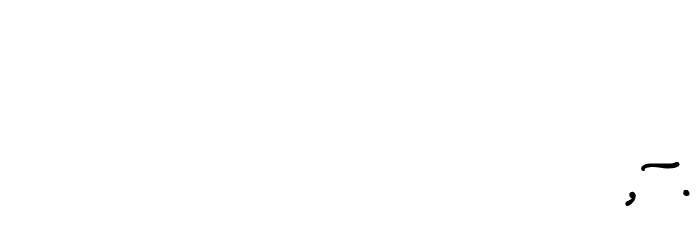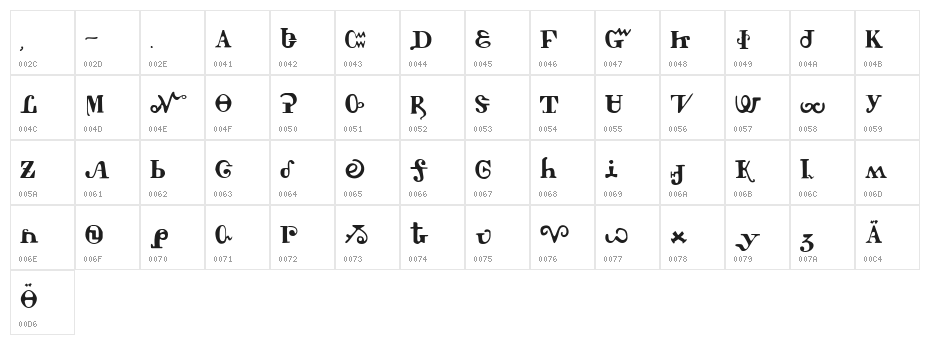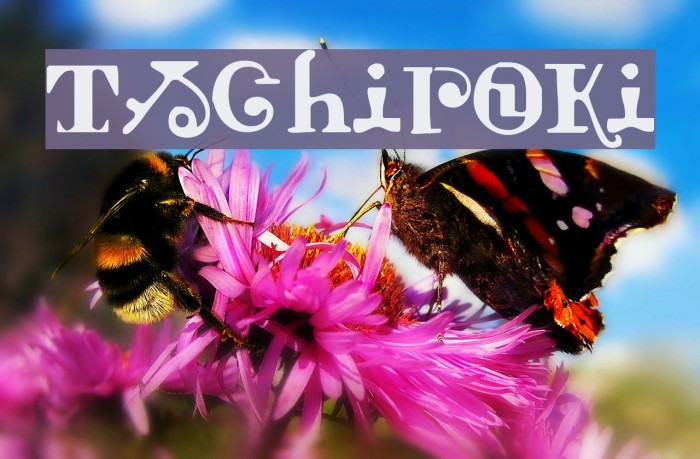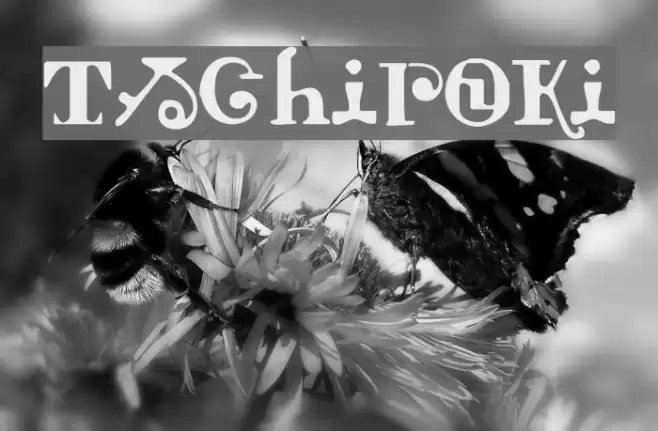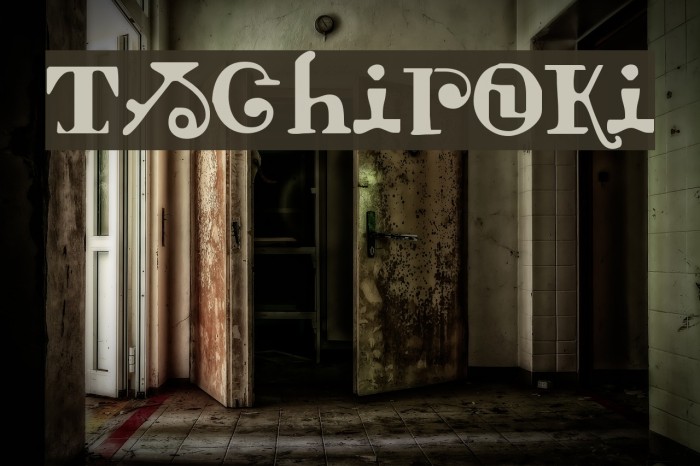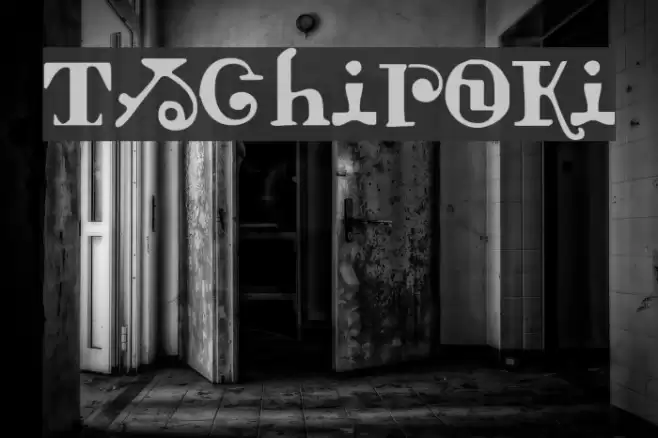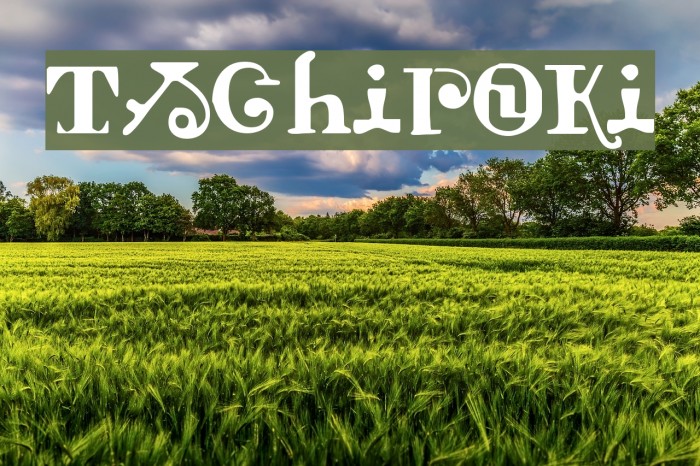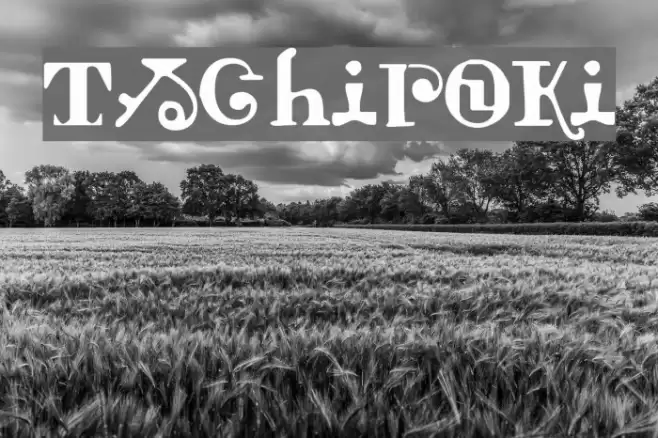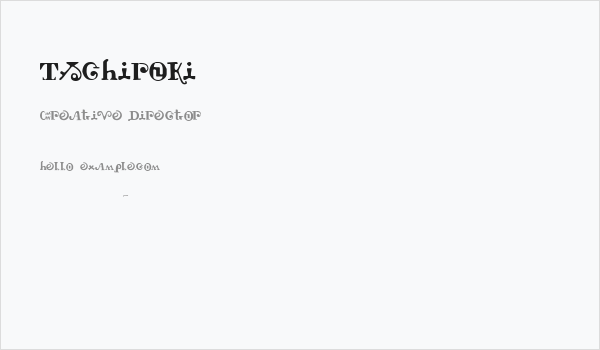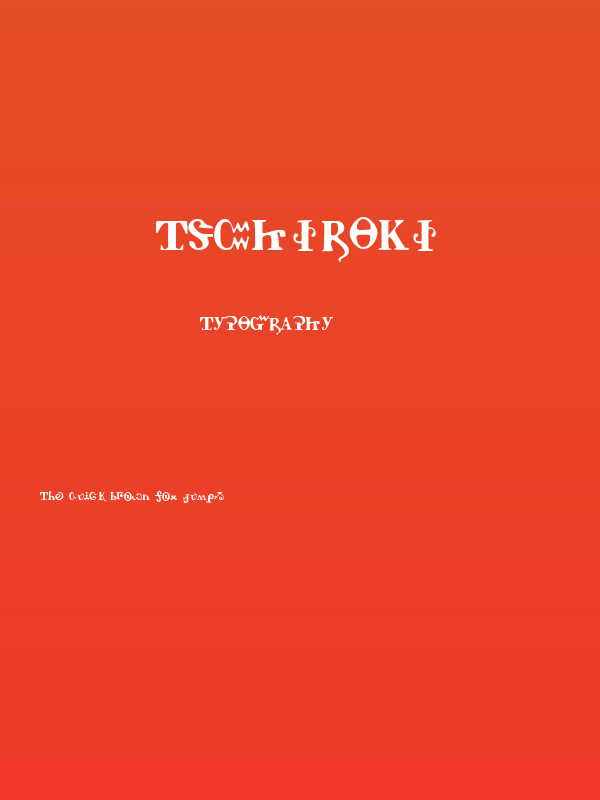
Tschiroki Font
Tschiroki Description
This font features a unique and artistic design, characterized by its bold and decorative elements. Each letter is crafted with intricate details, incorporating curves and flourishes that give it a whimsical and playful appearance. The uppercase letters are particularly striking, with some incorporating unexpected twists and loops. The lowercase letters maintain the same decorative style, ensuring consistency across the font. The numerals and special characters are equally ornate, making this font ideal for creative and eye-catching designs.
Proposed ProjectsIdeal for artistic projects, such as posters, invitations, and branding materials that require a distinctive and playful touch.